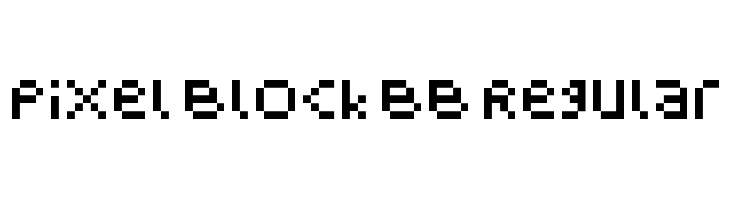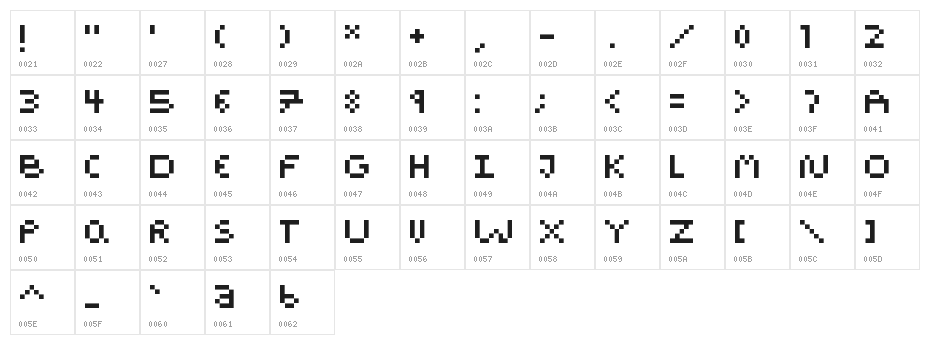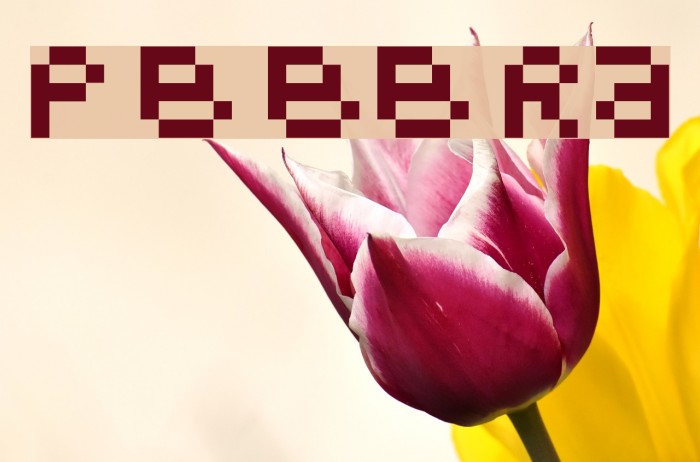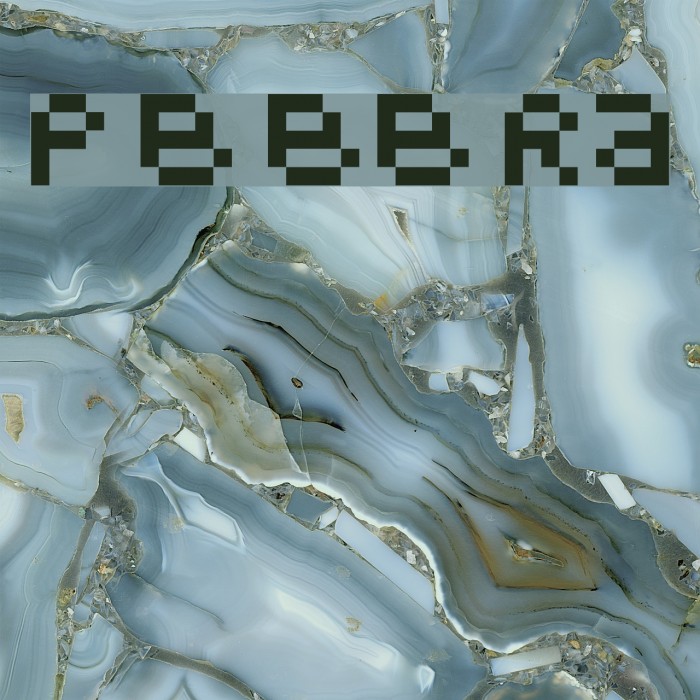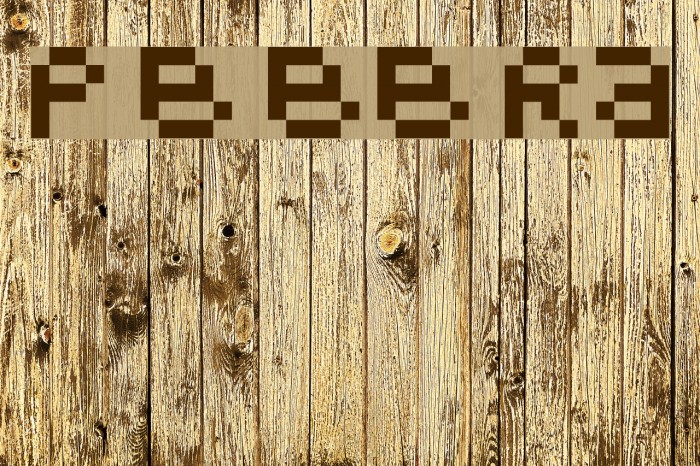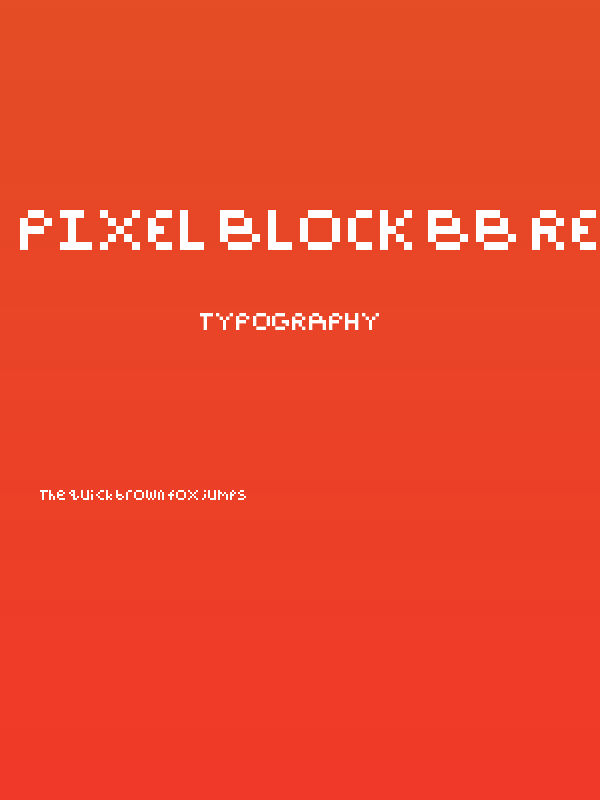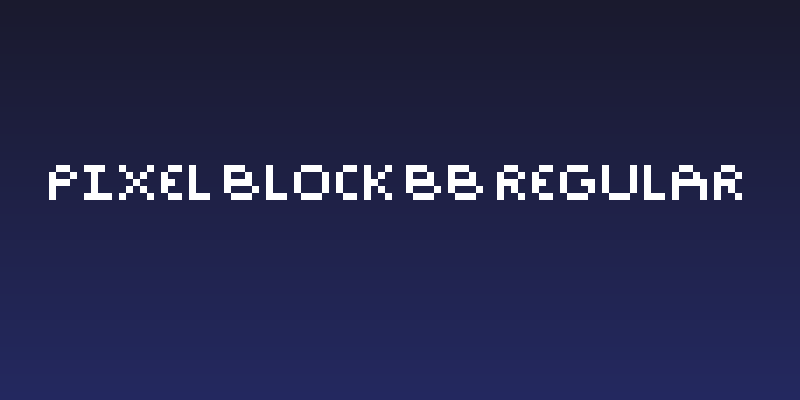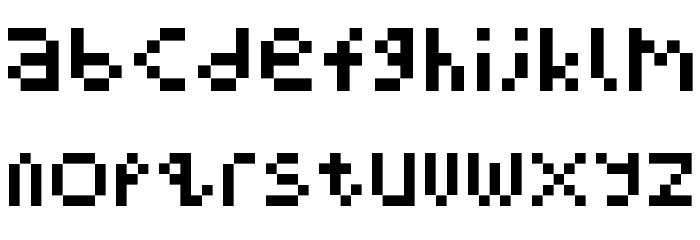
Pixel Block BB Regular Font
Pixel Block BB Regular Description
This font features a distinct pixelated design, reminiscent of early digital displays and retro video games. Each character is constructed with a blocky, grid-like appearance, giving it a nostalgic and playful feel. The uppercase and lowercase letters maintain a consistent style, with sharp edges and uniform spacing. Numbers and special characters are similarly designed, ensuring a cohesive look across all glyphs. The font's simplicity and geometric form make it ideal for projects that aim to capture a vintage digital aesthetic.